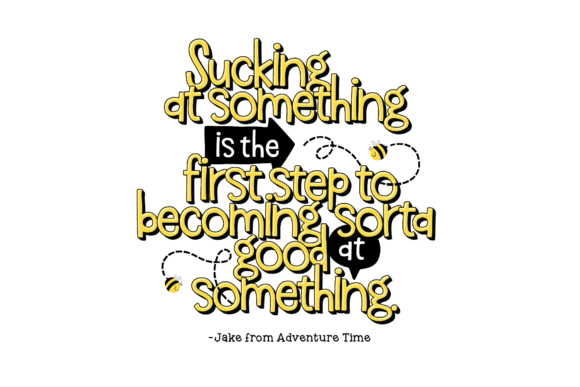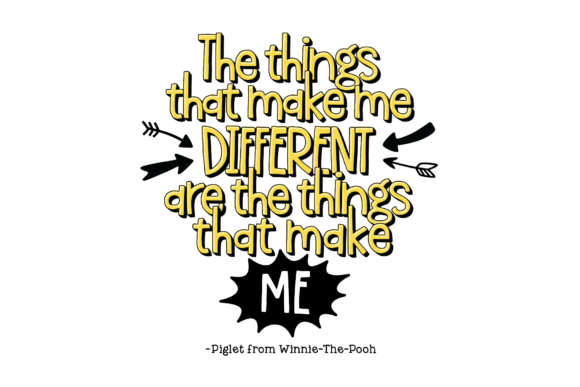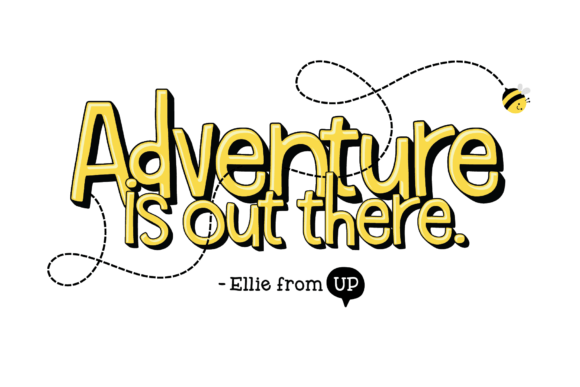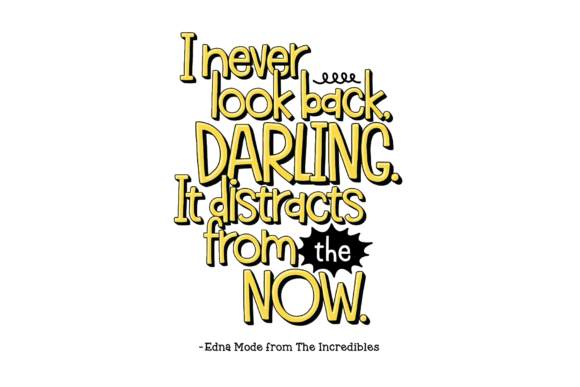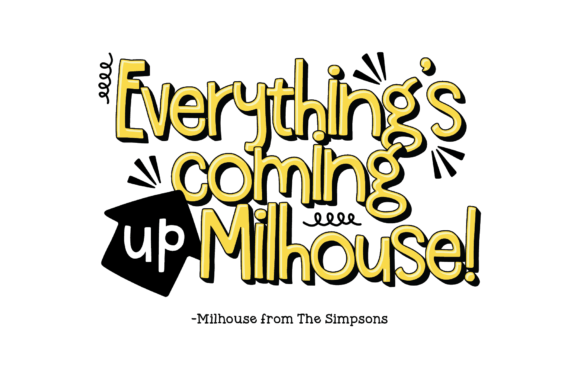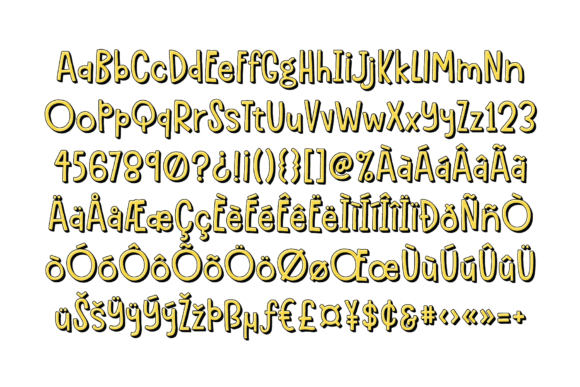
The Charm of Cartoon Saturday: A Font That Brings Joy to Your Designs
I’ll never forget the time I was working on a project for a children’s birthday party invitation. I had the design concept all sorted out, but I was struggling to find the perfect font that would capture the playful and fun vibe of the party. That’s when I stumbled upon Cartoon Saturday, a friendly font that burst with charm and instantly became the perfect fit for my project.
Cartoon Saturday is more than just a font – it’s a design companion that can help you create adorable and engaging designs. In this article, we’ll dive into the world of Cartoon Saturday, exploring its features, how to use it, and what makes it so special.
A Personal Review of Cartoon Saturday
• ✨ The font comes with an OpenType-SVG version in yellow, which adds a pop of color to your designs.
• ✅ The inclusion of filler and shadow versions that can be placed on top of each other offers endless creative possibilities.
• 🎉 A few doodles have been thrown in to help create cute designs and add an extra layer of fun.
While Cartoon Saturday is an amazing font, there are a few things to keep in mind:
• ⚠️ The font may not be suitable for very formal or professional designs, as it’s primarily meant for playful and creative projects.
• 🤔 Some users might find the font a bit too playful or childish for certain projects.
The Backstory of Cartoon Saturday
Cartoon Saturday was designed with one goal in mind: to bring joy and playfulness to your designs. The font’s creator wanted to craft a font that would be perfect for creative projects, such as children’s books, party invitations, and social media graphics.
The design process involved experimenting with different shapes, lines, and colors to create a unique and charming font. The result is a font that’s both fun and functional.
What type of projects is Cartoon Saturday best suited for? Cartoon Saturday is perfect for playful and creative projects, such as children’s books, party invitations, and social media graphics.